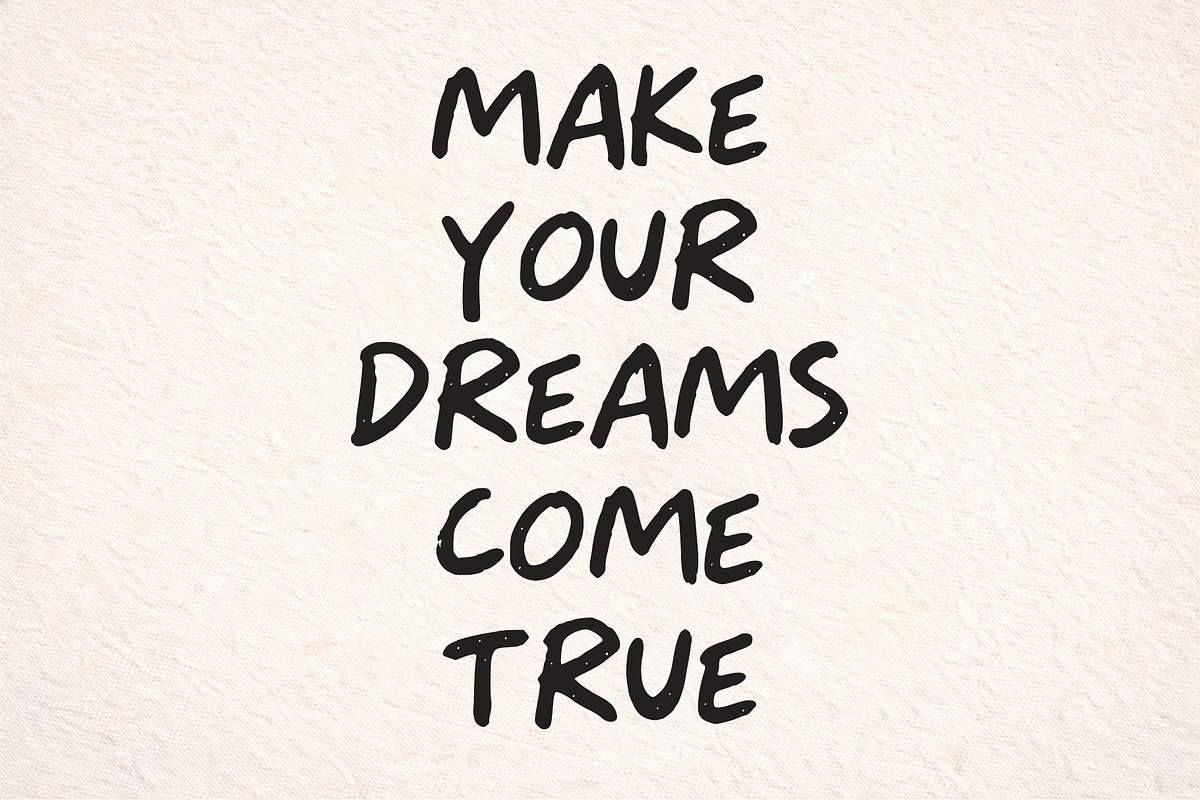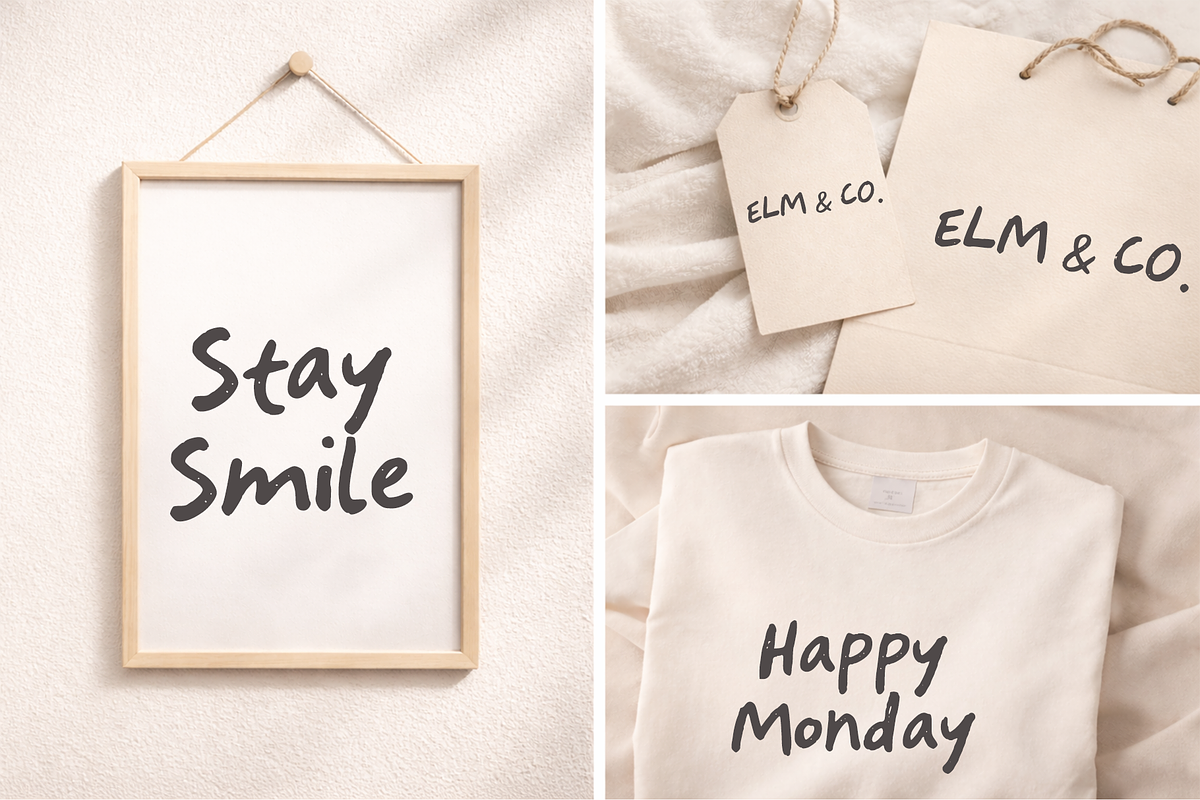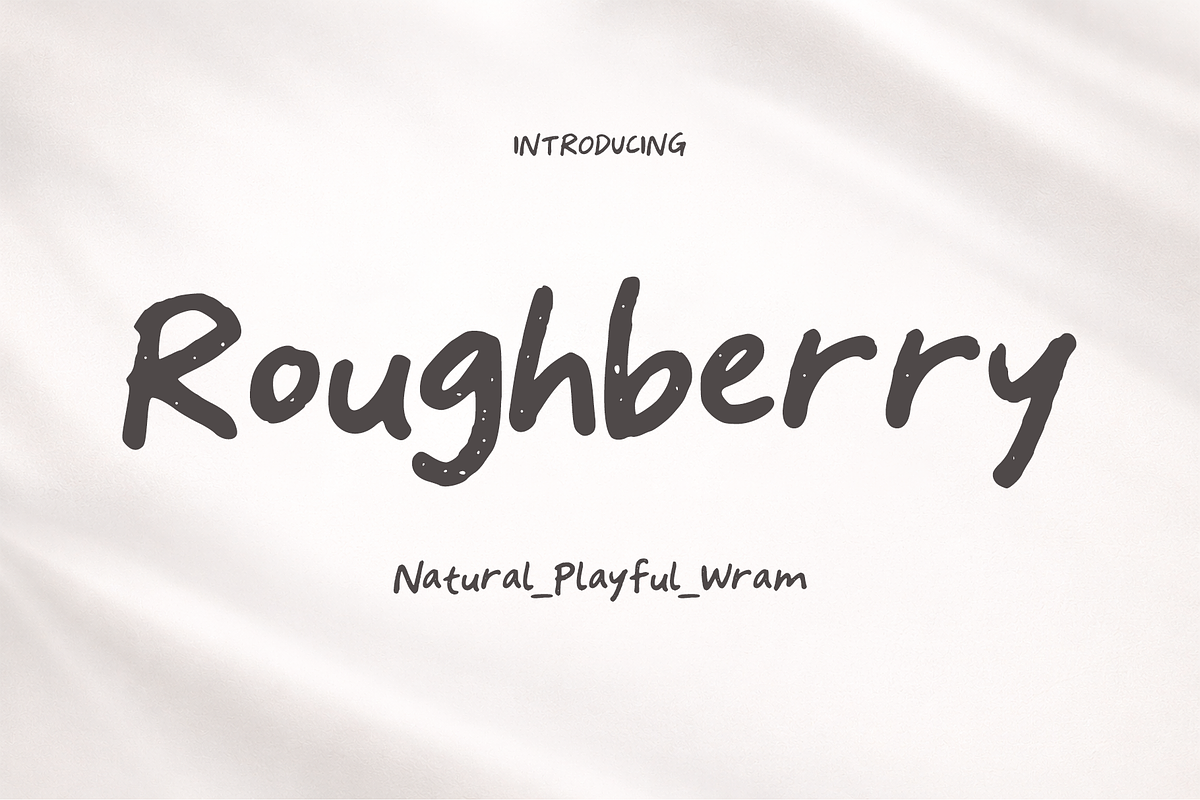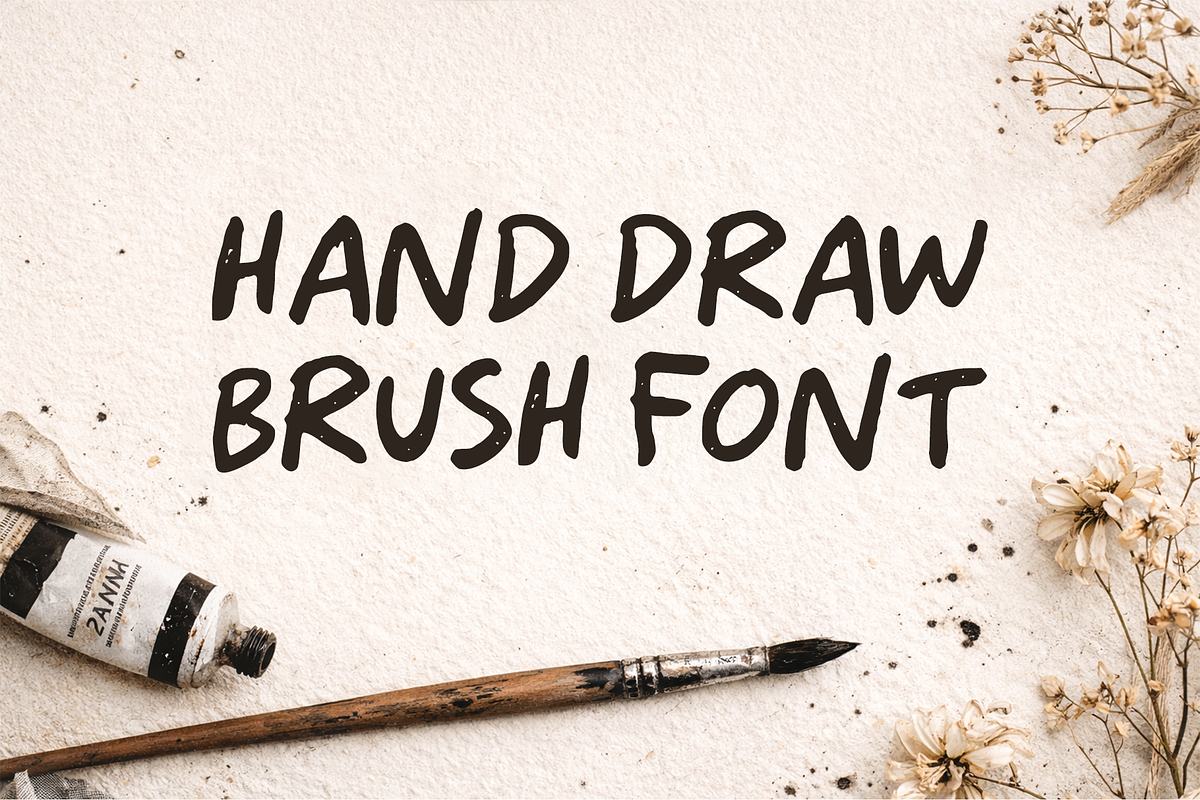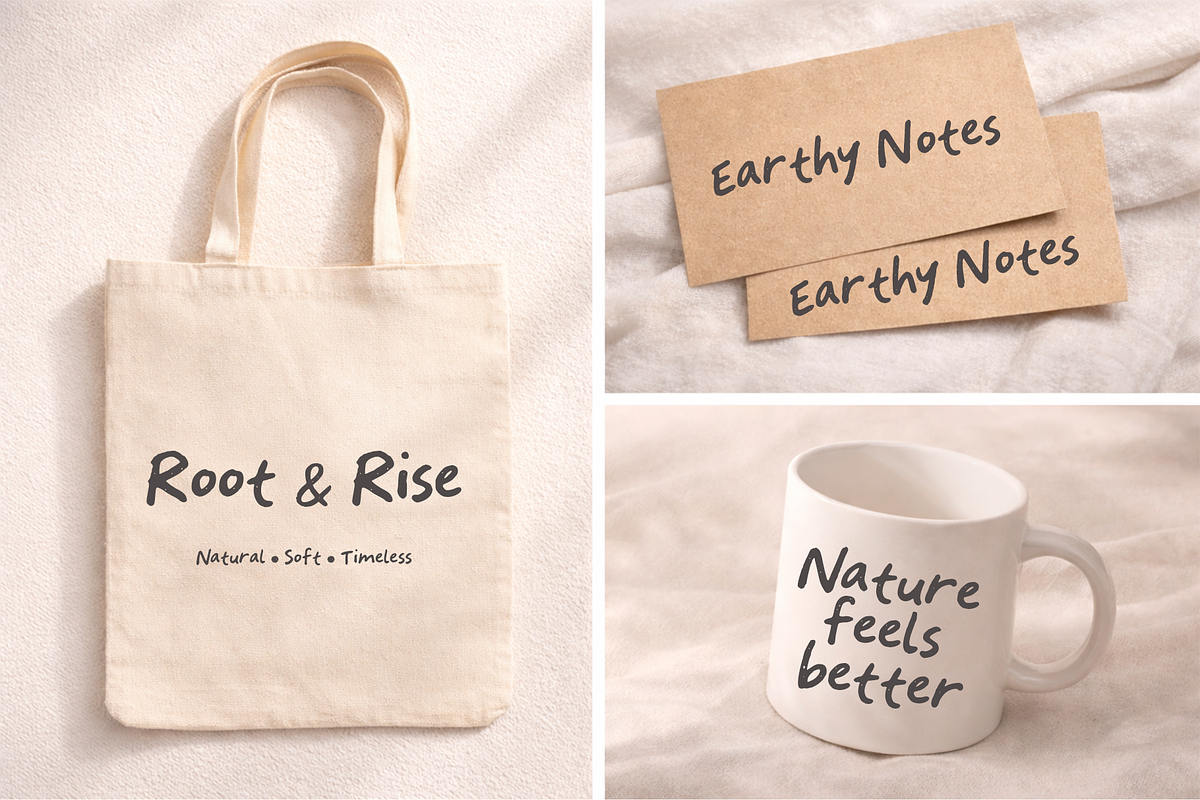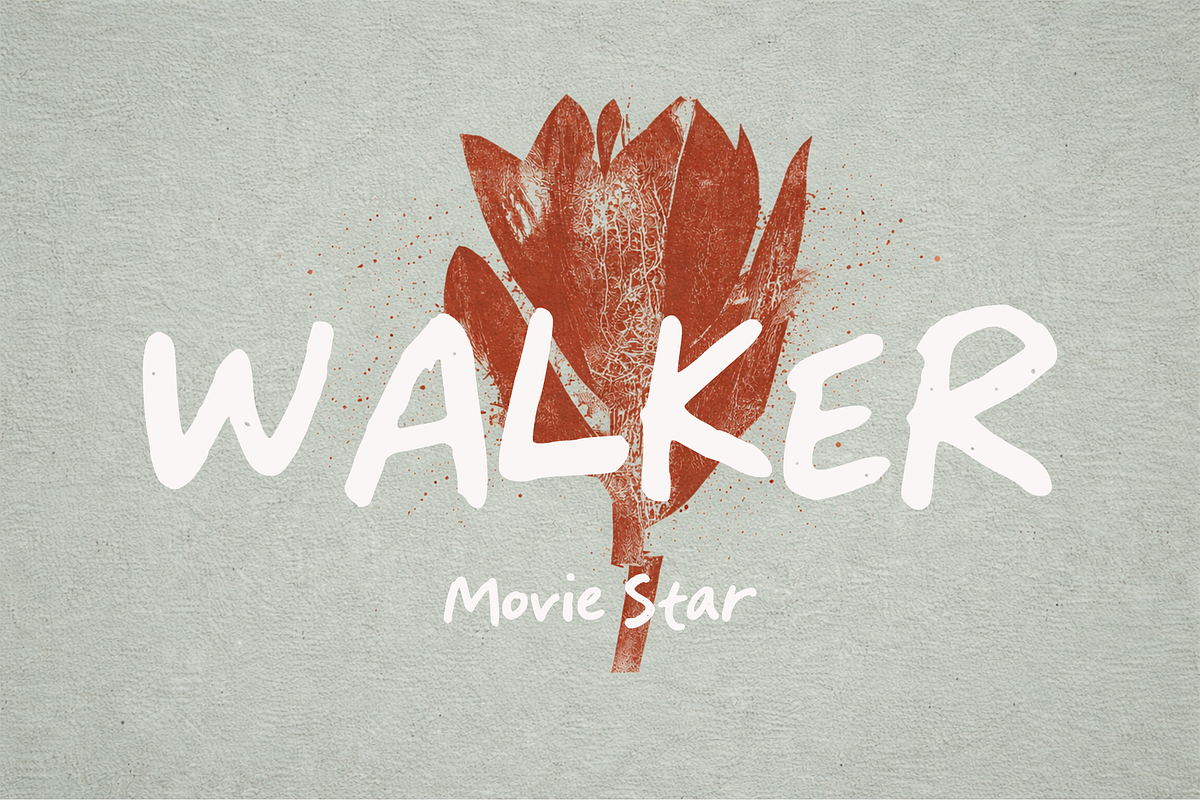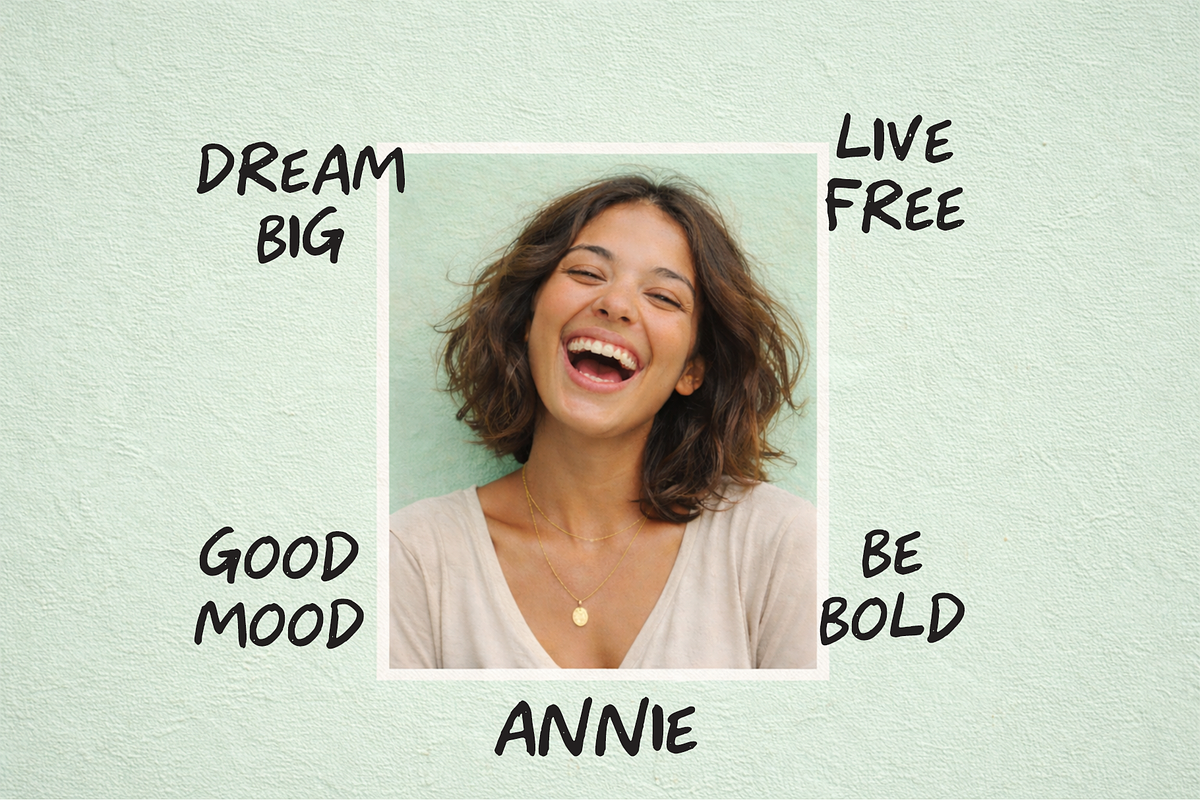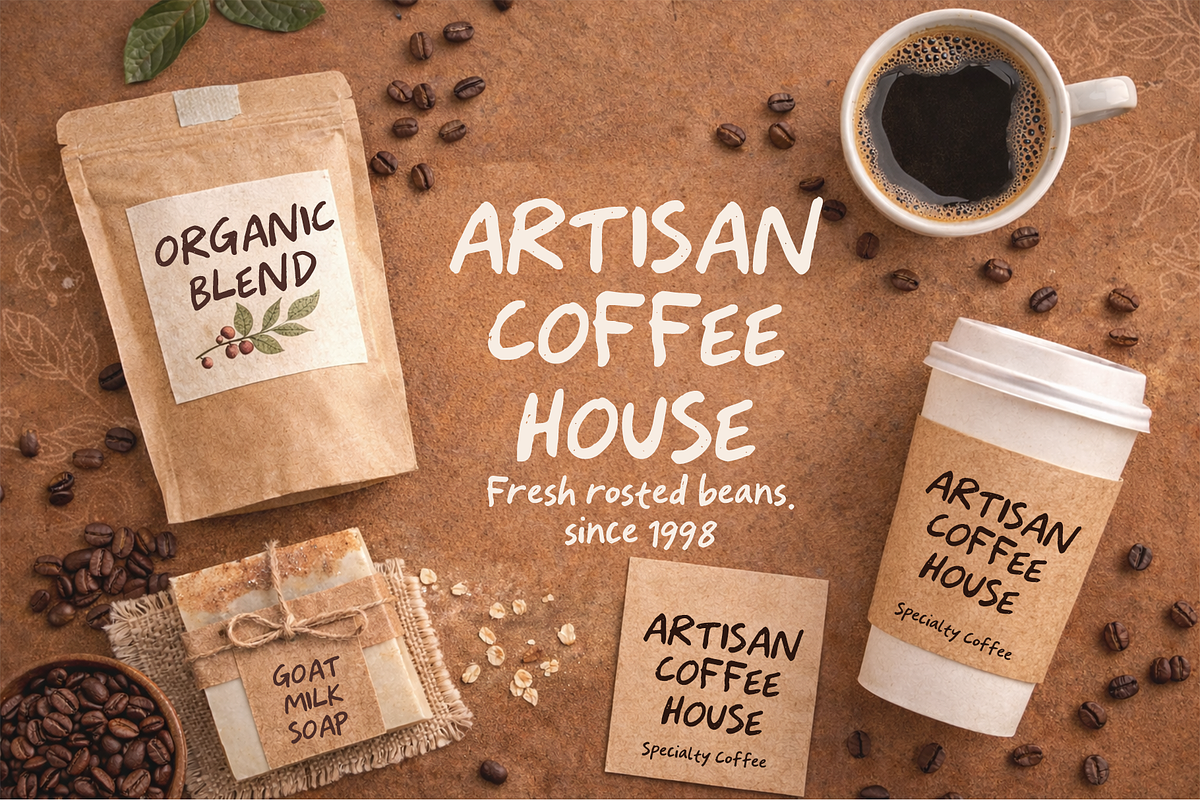
Roughberry – Natural Playful Brush
Roughberry – Natural Playful Brush Font
Roughberry is a natural brush font that brings a warm and playful feel into your designs. With its slightly rough strokes and organic flow, it creates a unique and lively look while staying clean and easy to read.
Each letter is crafted with a natural hand-drawn style, enhanced by subtle texture details that give a handmade touch without looking messy.